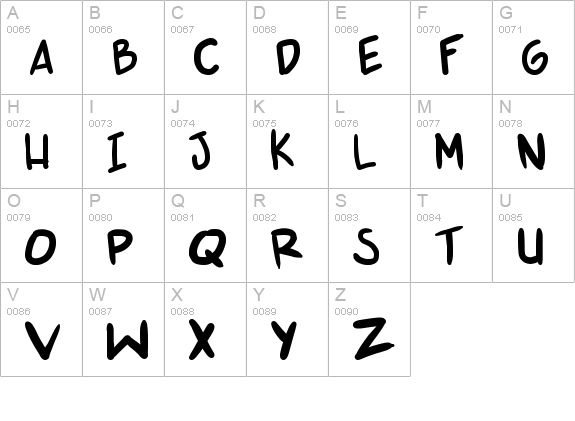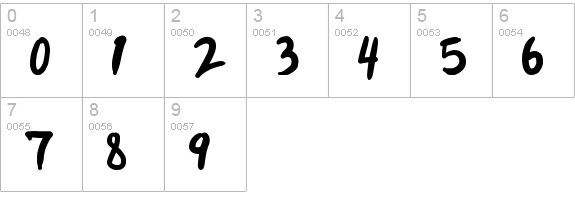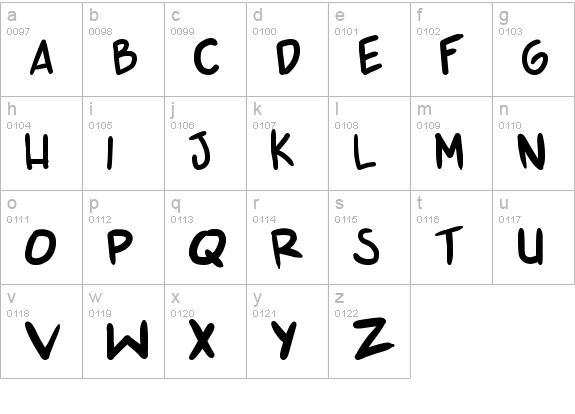
shonen punk v2 Font Details
Shonen Punk v2 font is a dynamic and energetic typeface that perfectly captures the spirit of the punk rock subculture. With its bold and edgy design, this font is sure to make a statement in any project. Whether you're creating posters, album covers, or merchandise, Shonen Punk v2 font will add a rebellious flair to your work. Best of all, Shonen Punk v2 font is completely free to download at FontsMarket.com. So go ahead and unleash your creativity with this unique and eye-catching font!